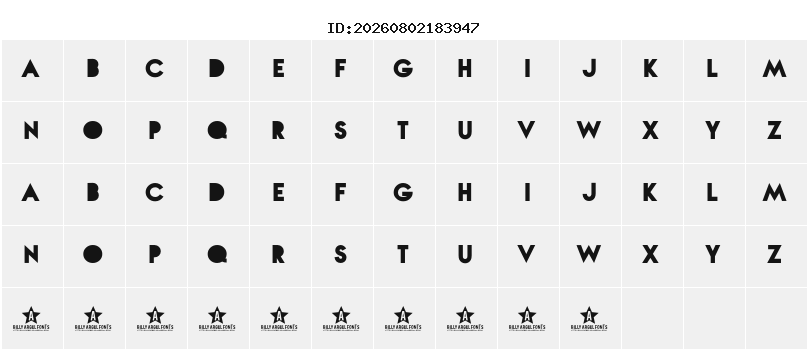
• Font Name: Nova SOLID
• Designer: Billy Argel
About Nova SOLID.otf
Nova SOLID.otf is a modern, elegant sans-serif font designed for ultimate readability and visual harmony. Perfect for branding, headlines, web design, and print materials.